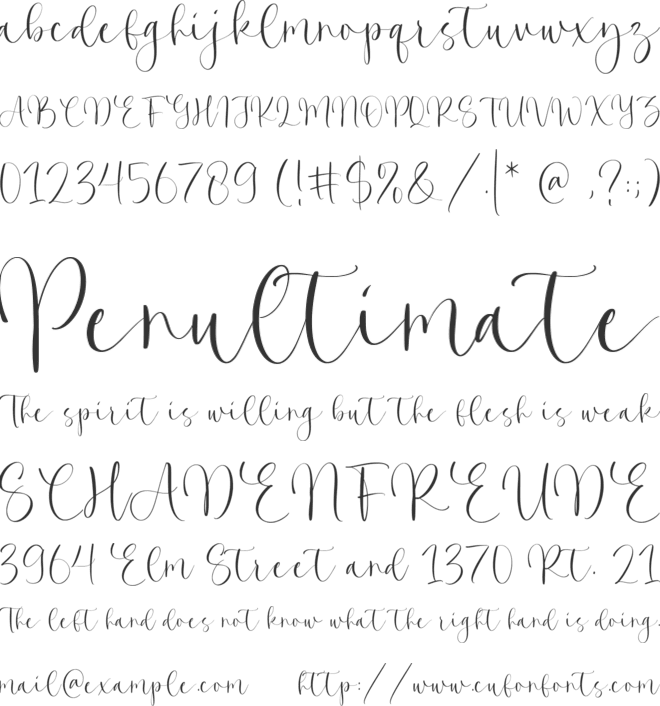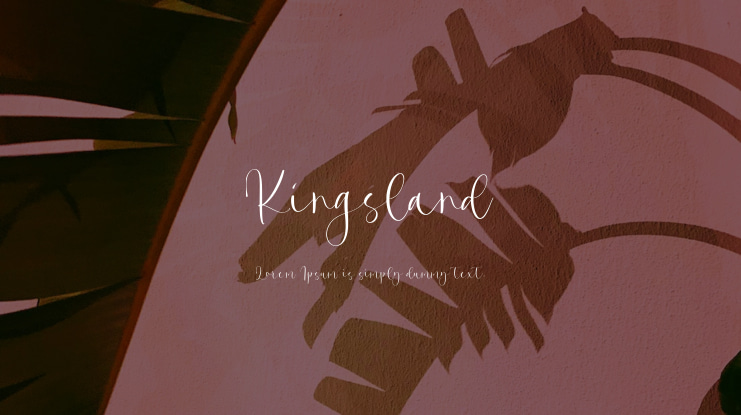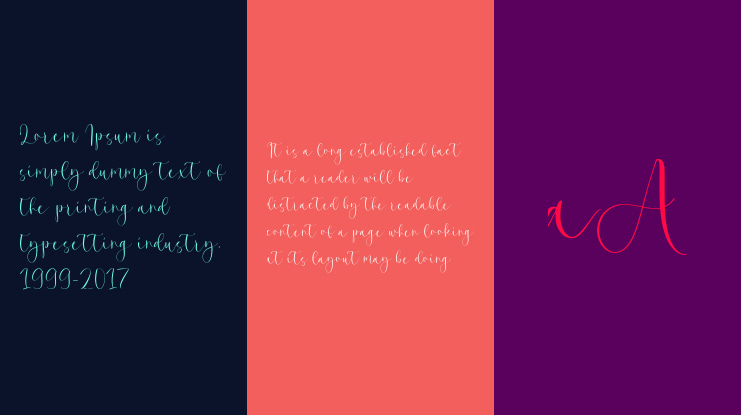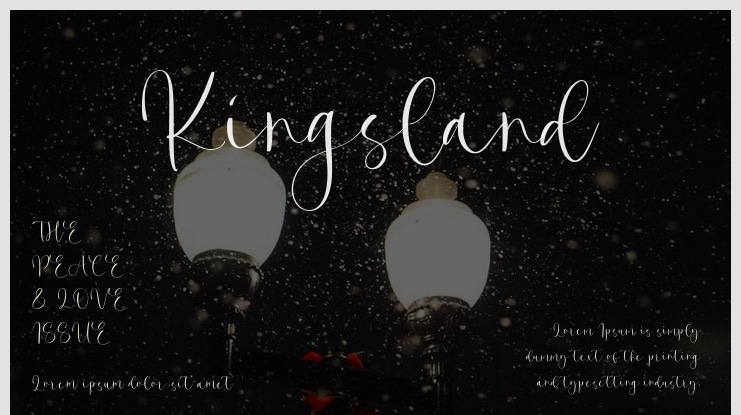
Kingsland Font
Kingsland is a stylish Calligraphy Font, meticulously crafted to bring a custom feel to your design endeavors. Its authentic, hand-drawn look and one-of-a-kind charm make it a versatile choice for various design tasks such as logos, branding, and invitations. The modern and personalized script of this font ensures a distinctive appearance that is bound to leave a lasting impression. The package includes TTF, OTF, and WOFF formats along with multilingual support. We hope you find this font delightful! Share your thoughts and feedback. Thank you!